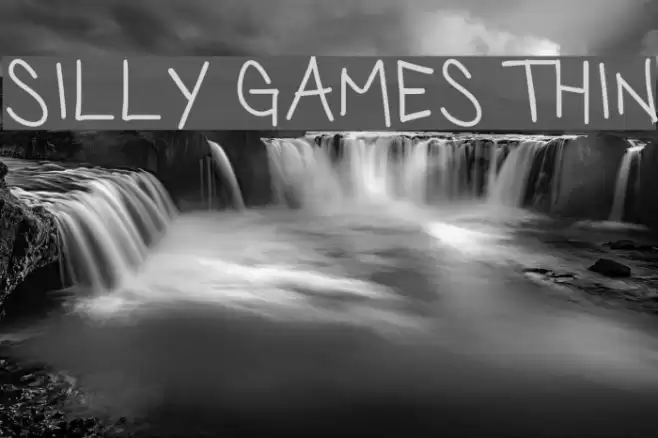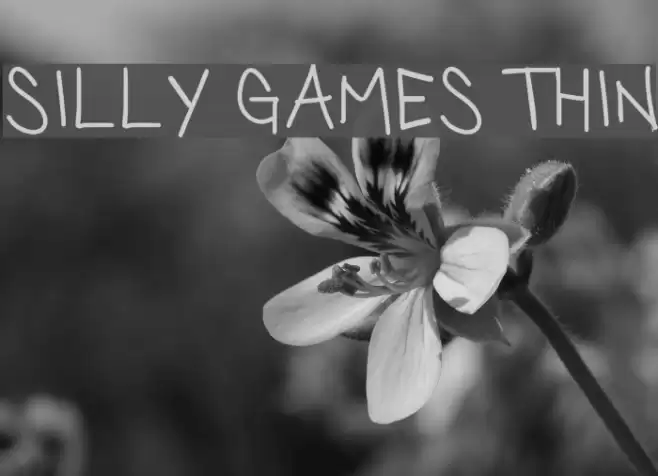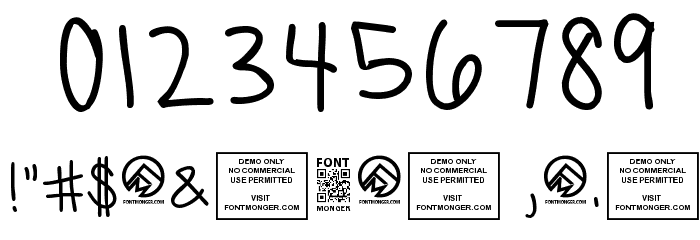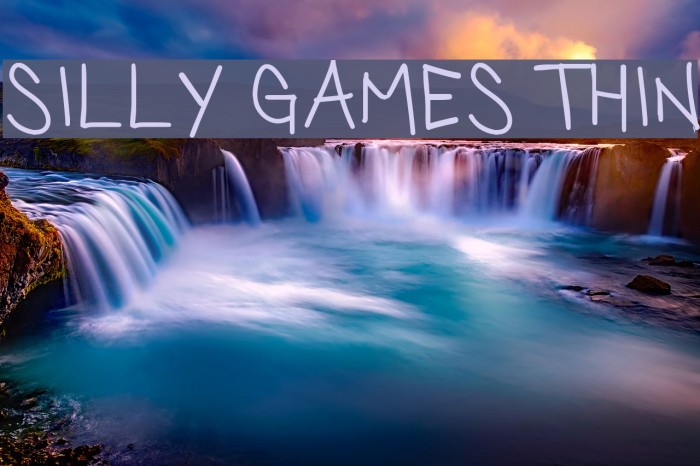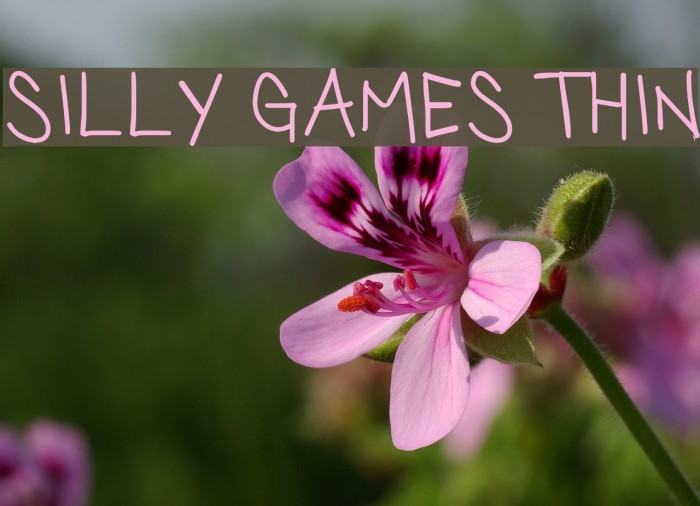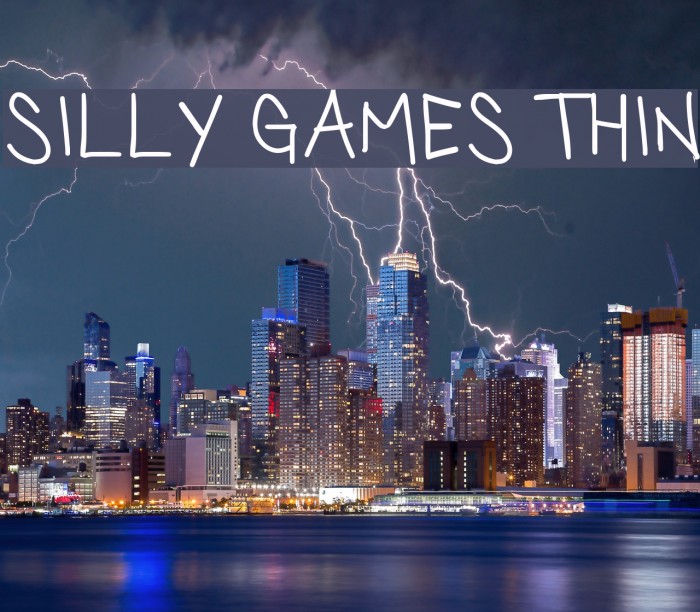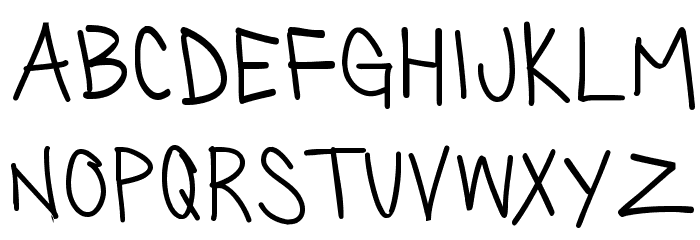
Silly Games Thin Font
Silly Games Thin Description
This playful and whimsical font features a hand-drawn style with a thin, casual appearance. The characters are slightly irregular, adding a sense of fun and spontaneity. The uppercase and lowercase letters maintain a consistent height, giving the font a cohesive look. The numbers and special characters follow the same playful design, making it suitable for creative projects. The strokes are uniform in thickness, providing a clean and legible appearance. This font is ideal for projects that require a lighthearted and informal touch, such as children's books, greeting cards, or playful branding.
A playful, hand-drawn font with a thin, casual style from Uncategorized fonts.
- Proposed Projects: Children's books, greeting cards, playful branding, informal invitations.
- Overall Style: Playful, Whimsical
- Use Case: Headlines, Logos, Informal Text